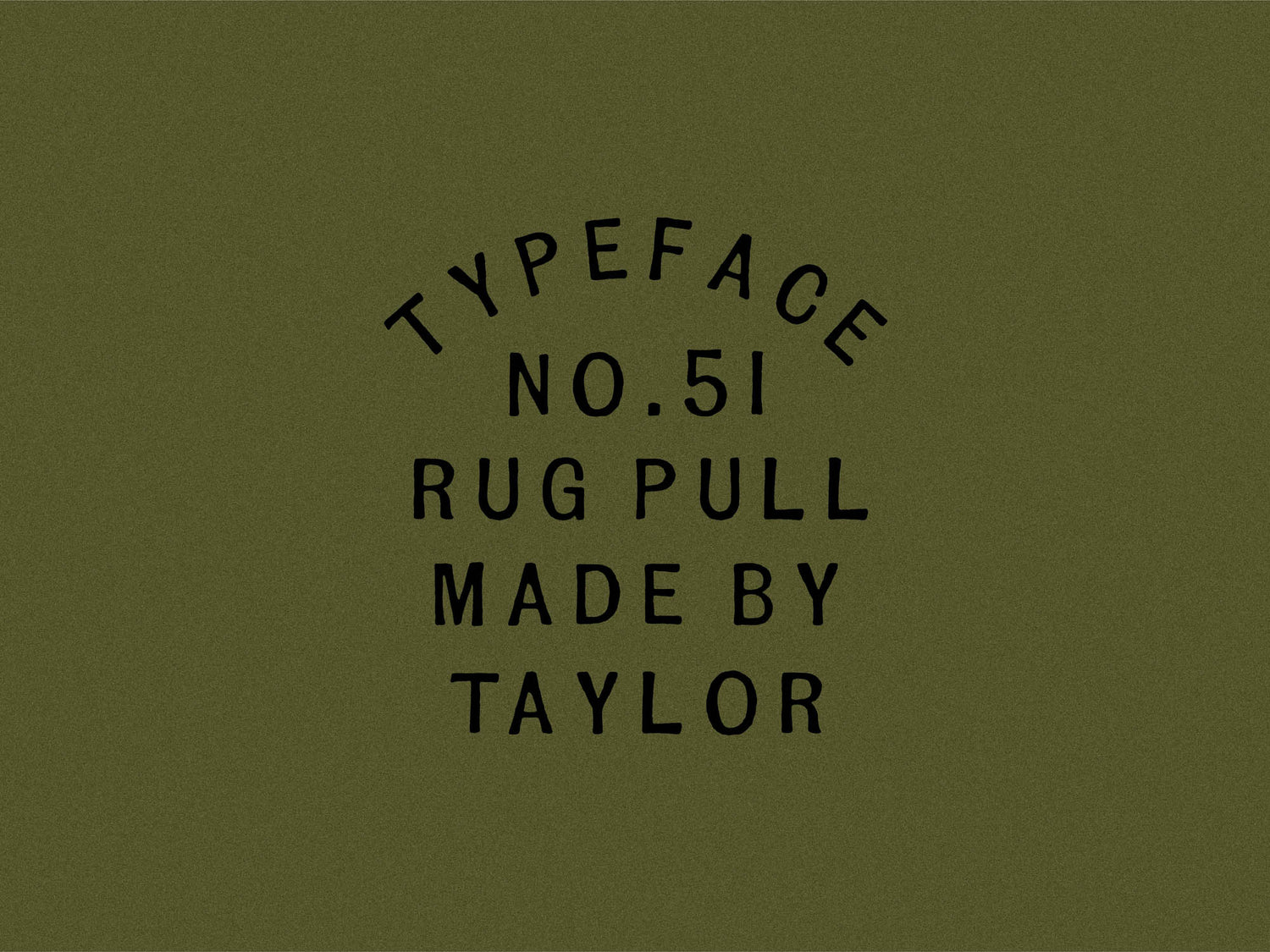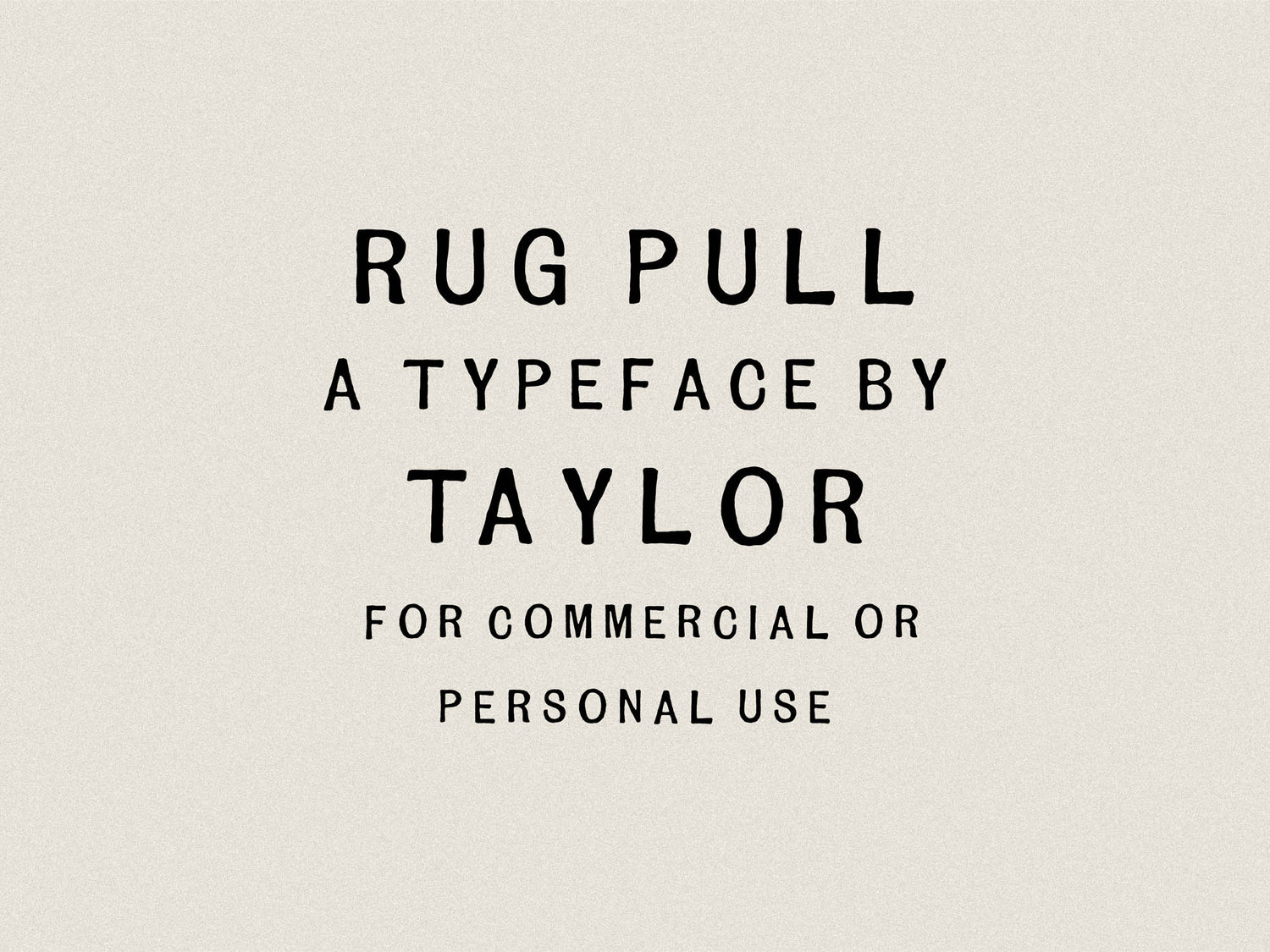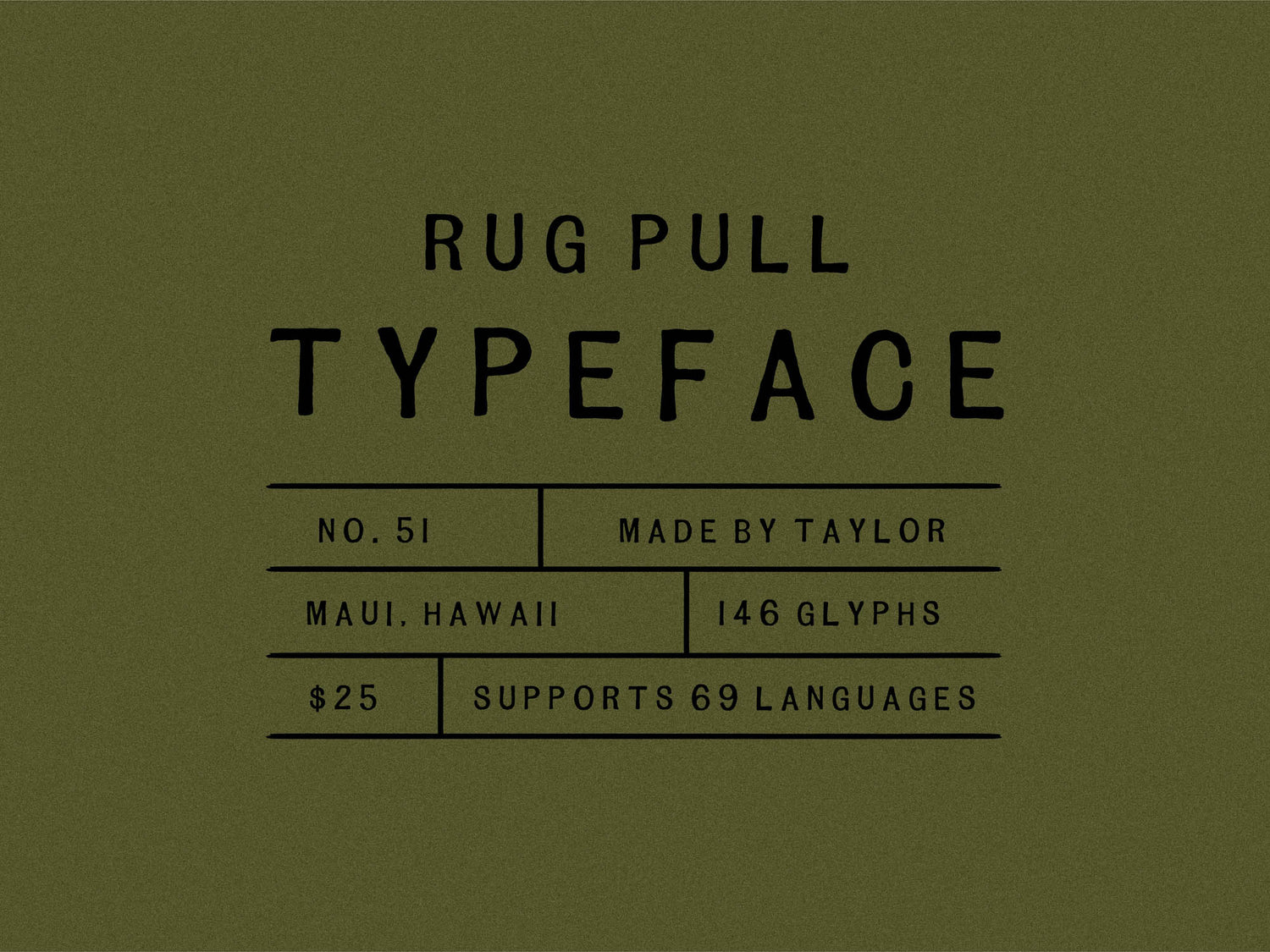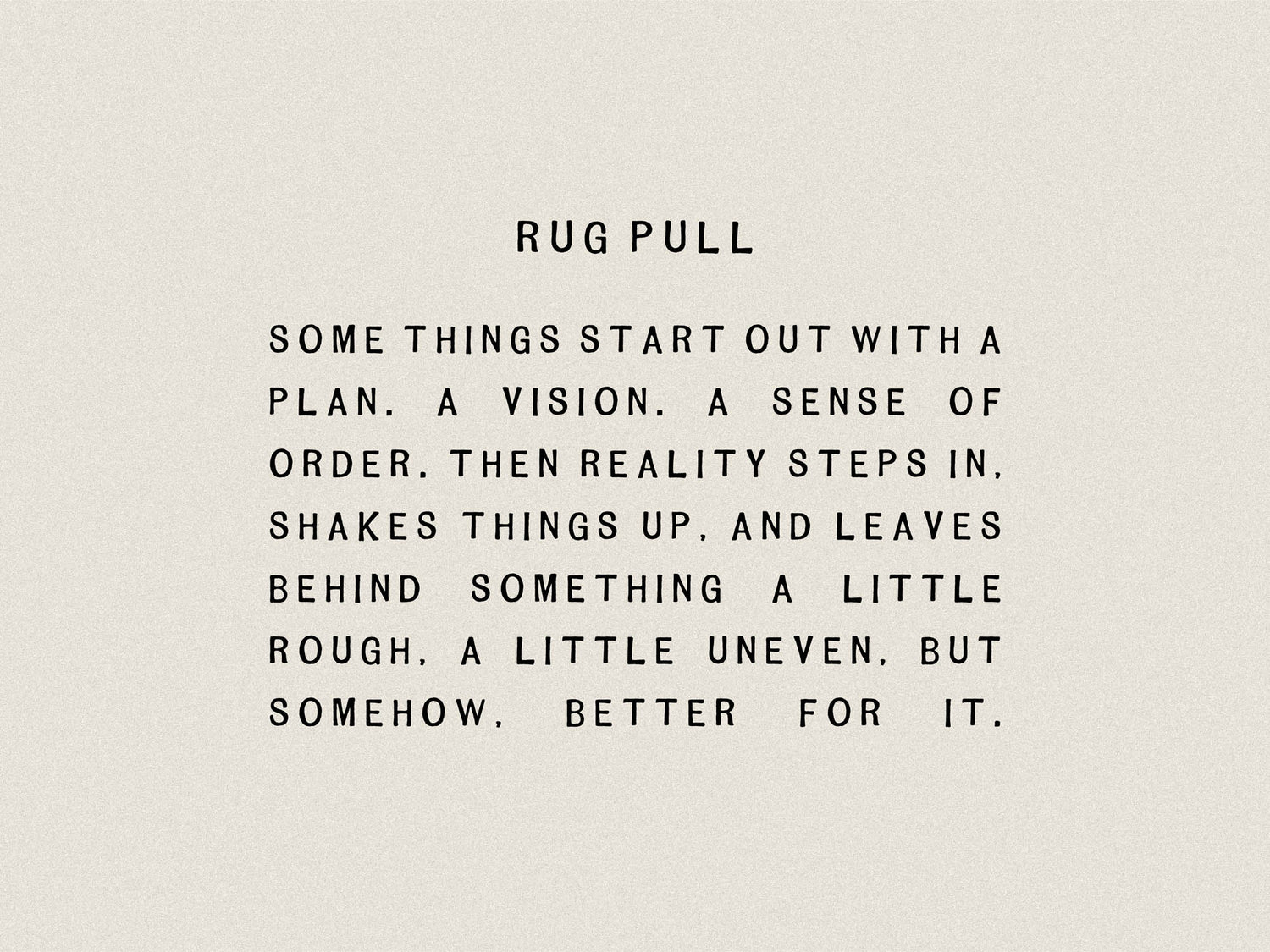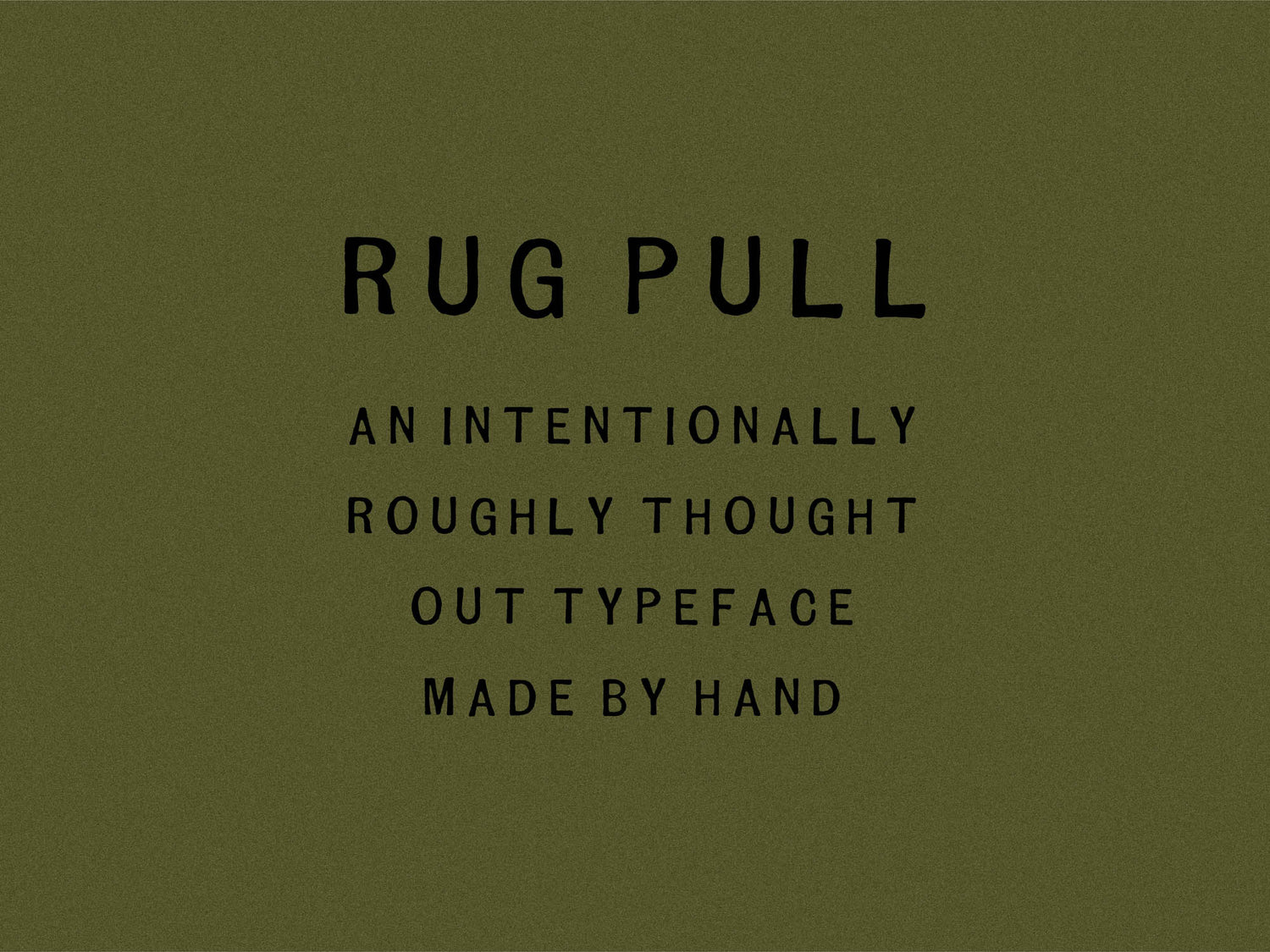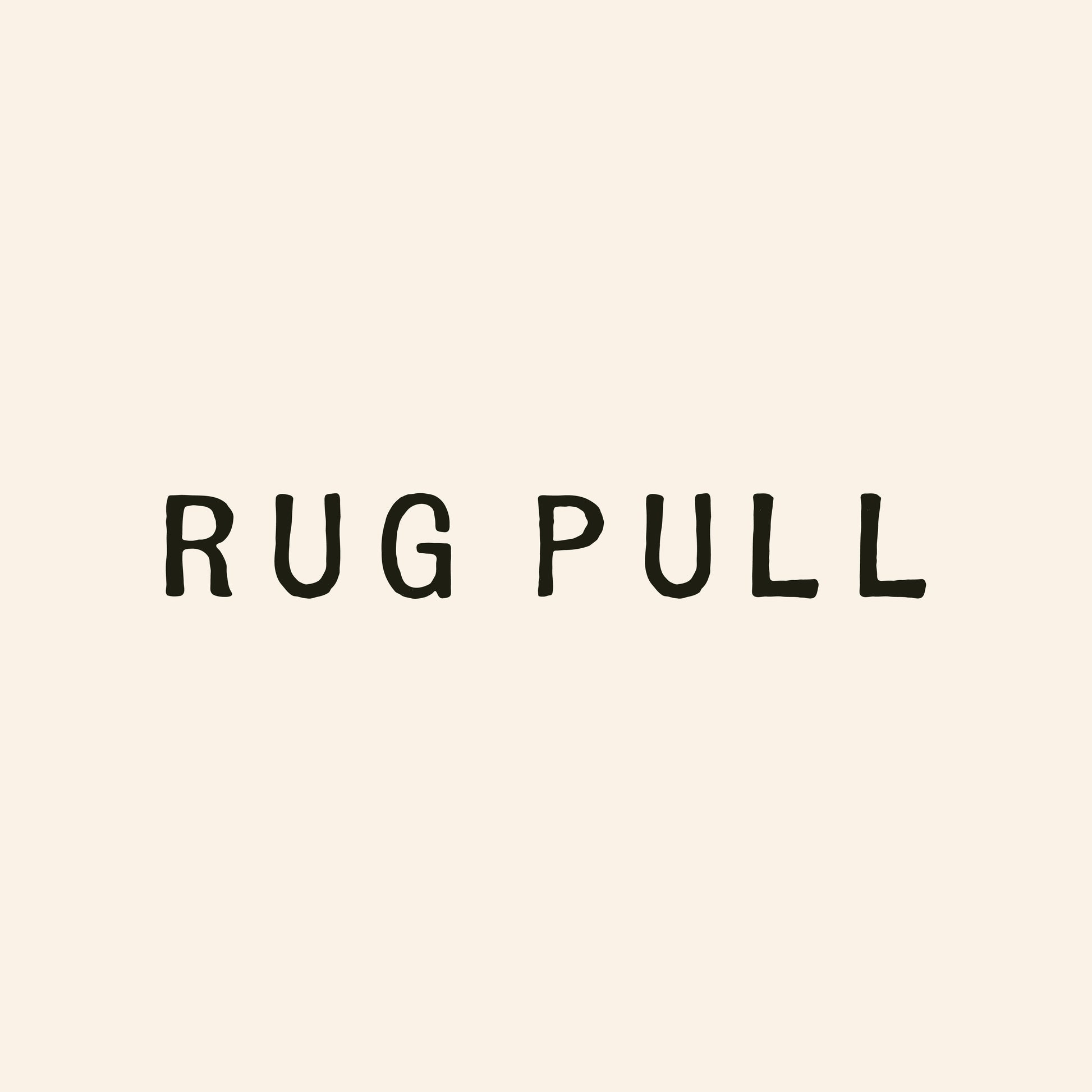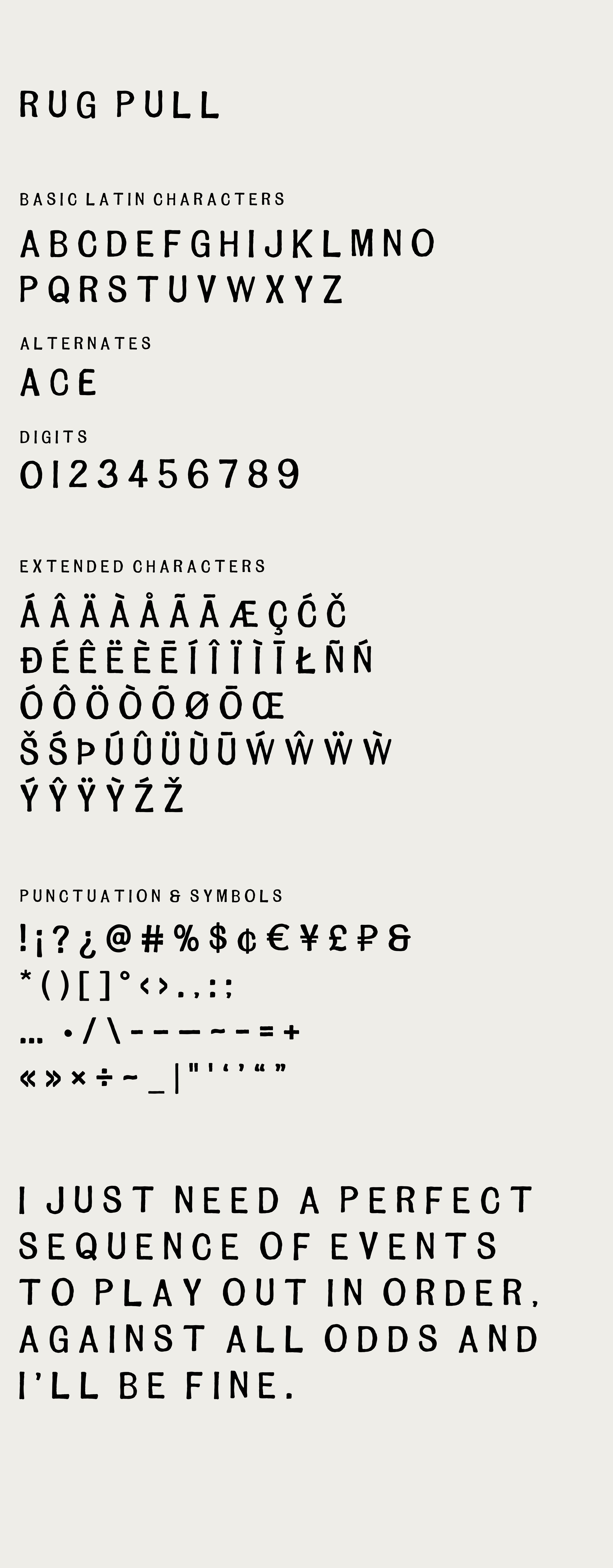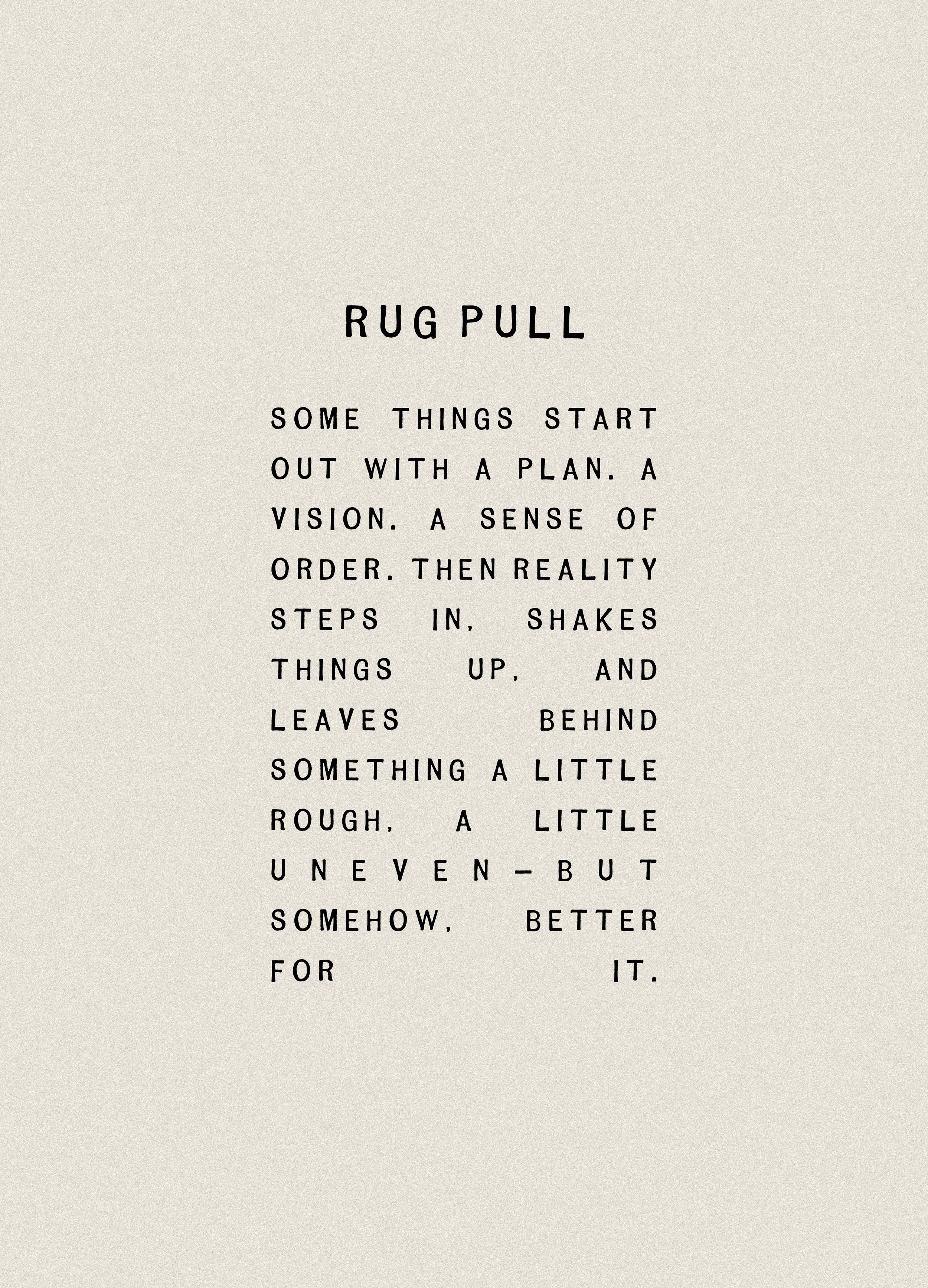
Rug Pull
Rug Pull doesn’t follow all the rules. Or even most of them.
It’s stamped, hand-drawn, and carries all the wear and tear that makes it interesting. The rhythm’s a little off, the kerning has a mind of its own, and yet somehow it still works.